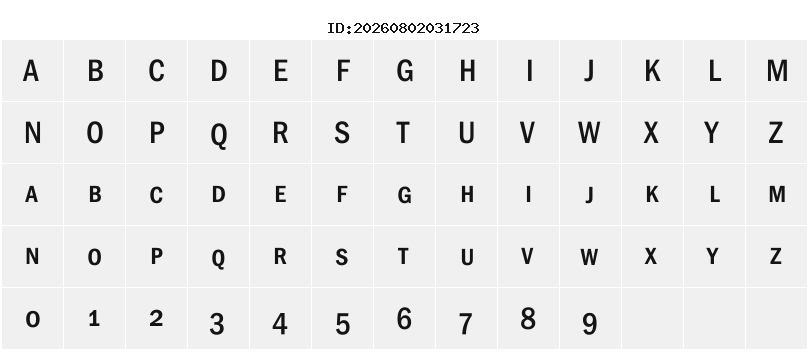
About MVGothicCondSC.ttf
MVGothicCondSC.ttf is a modern, elegant sans-serif font designed for ultimate readability and visual harmony. Perfect for branding, headlines, web design, and print materials.